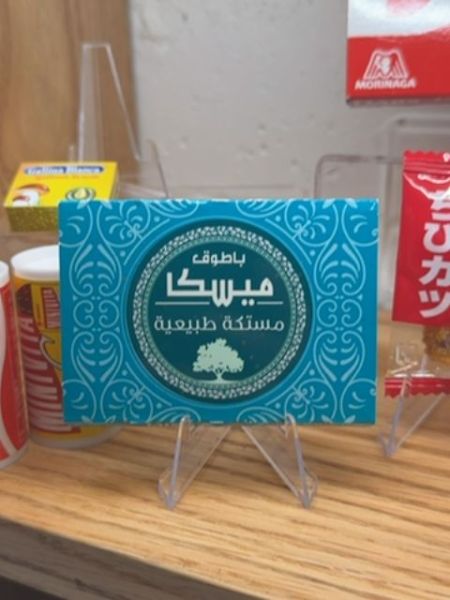
ميسكا
A natural mastic gum known for its chewing properties and unique flavor, used traditionally as a confectionery treat.
The typography features a bold, sans-serif Arabic script that is both modern and legible, contrasting elegantly against the intricate backdrop. The use of white text on a teal background enhances readability and adds a sense of freshness to the design.
The packaging is in a rectangular form with a vibrant teal background, adorned with intricate white ornamental patterns that evoke a sense of traditional design. The central circular element highlights the product name, providing a focal point that is both elegant and eye-catching.
- Mastic gum is known for its natural resin properties.
- Traditionally used in the Mediterranean region.
- Mastic gum is often used for both culinary and medicinal purposes.